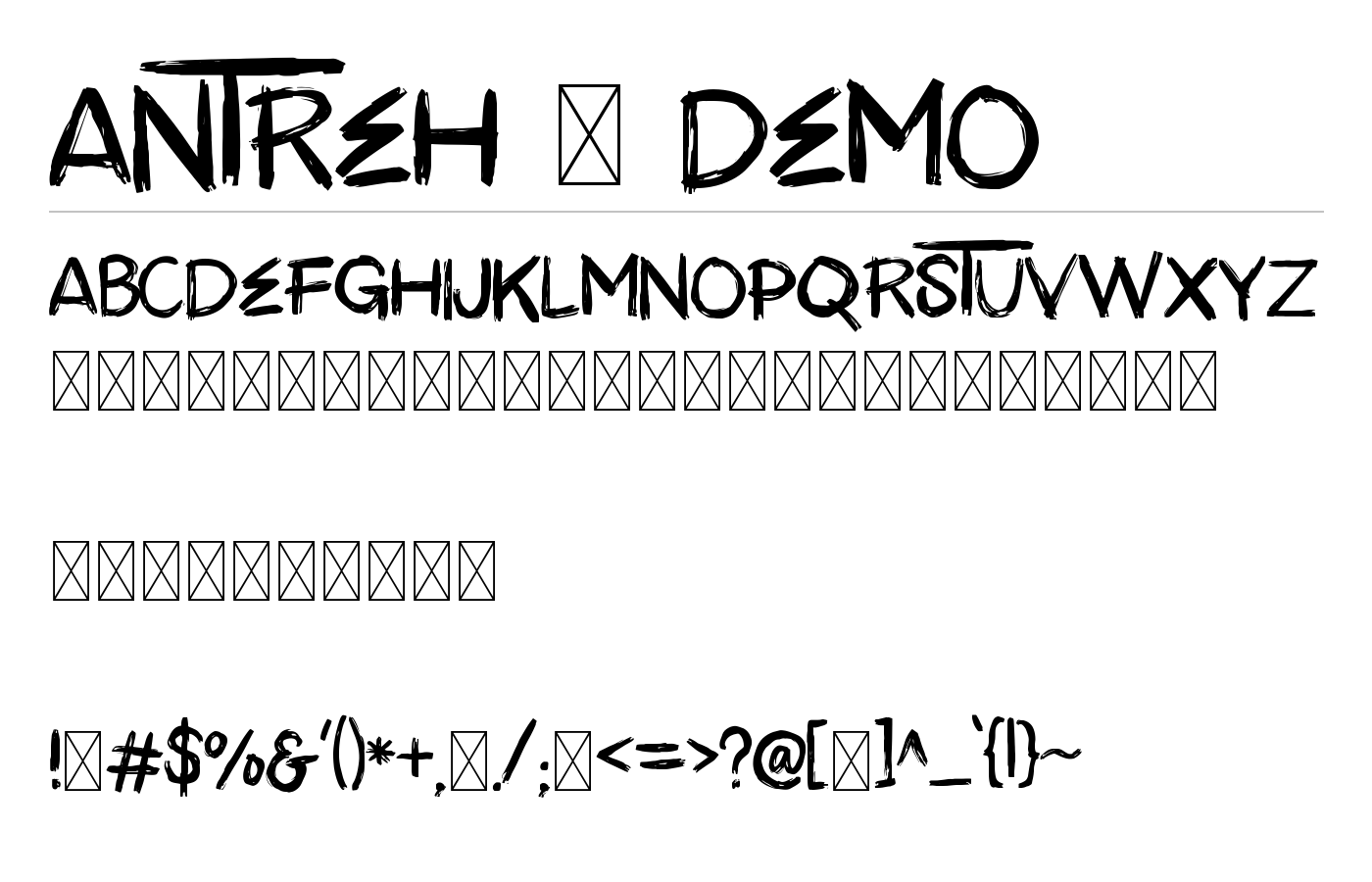
ANTREH - DEMO is a bold, hand-drawn display font that exudes energy and creativity with its rough, brushstroke texture and irregular letter shapes. Its uppercase-only style with unique, expressive characters makes it perfect for eye-catching headlines, logos, and artistic projects that want to convey a playful and dynamic personality. This font works best in designs that aim for a casual, edgy, or artistic vibe rather than formal or traditional contexts.
ANTREH - DEMO Font
About ANTREH - DEMO Font
| Font family | ANTREH - DEMO Font |
| Designer | Sigit Dwipa |